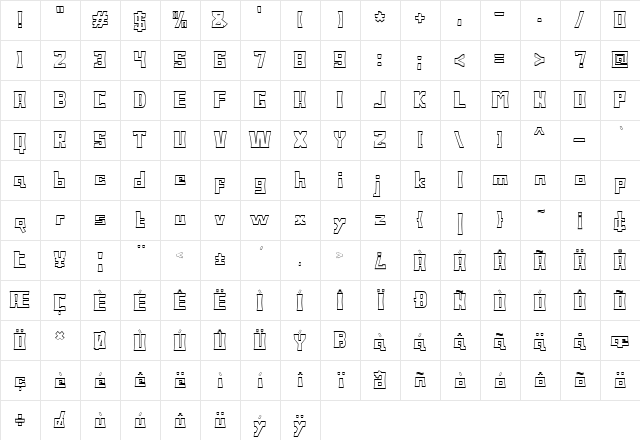
Bodax Outline Regular
| Designer | Risa AW - Waton Std |
Design Context for Bodax Outline Typeface
Bodax Outline is built around its visual character rather than neutral utility — its distinctive forms are designed to make an impression at display sizes.
Font Pairing: Pair with a clean neutral sans-serif for body copy to let Bodax Outline's character lead without overwhelming the composition.
Pro Tip: Use Bodax Outline exclusively at display sizes — it was designed to be seen, not read at length. Let a neutral companion handle body copy.